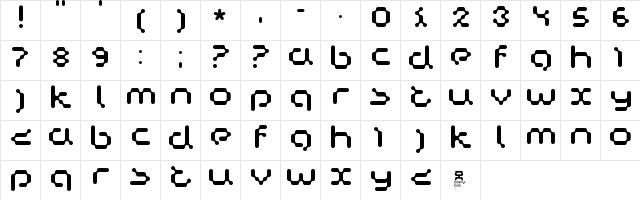
Copycat Regular
Design Context for Copycat Typeface
Copycat takes a measured approach to typography — its balanced proportions and neutral character make it a reliable workhorse for both digital and print work.